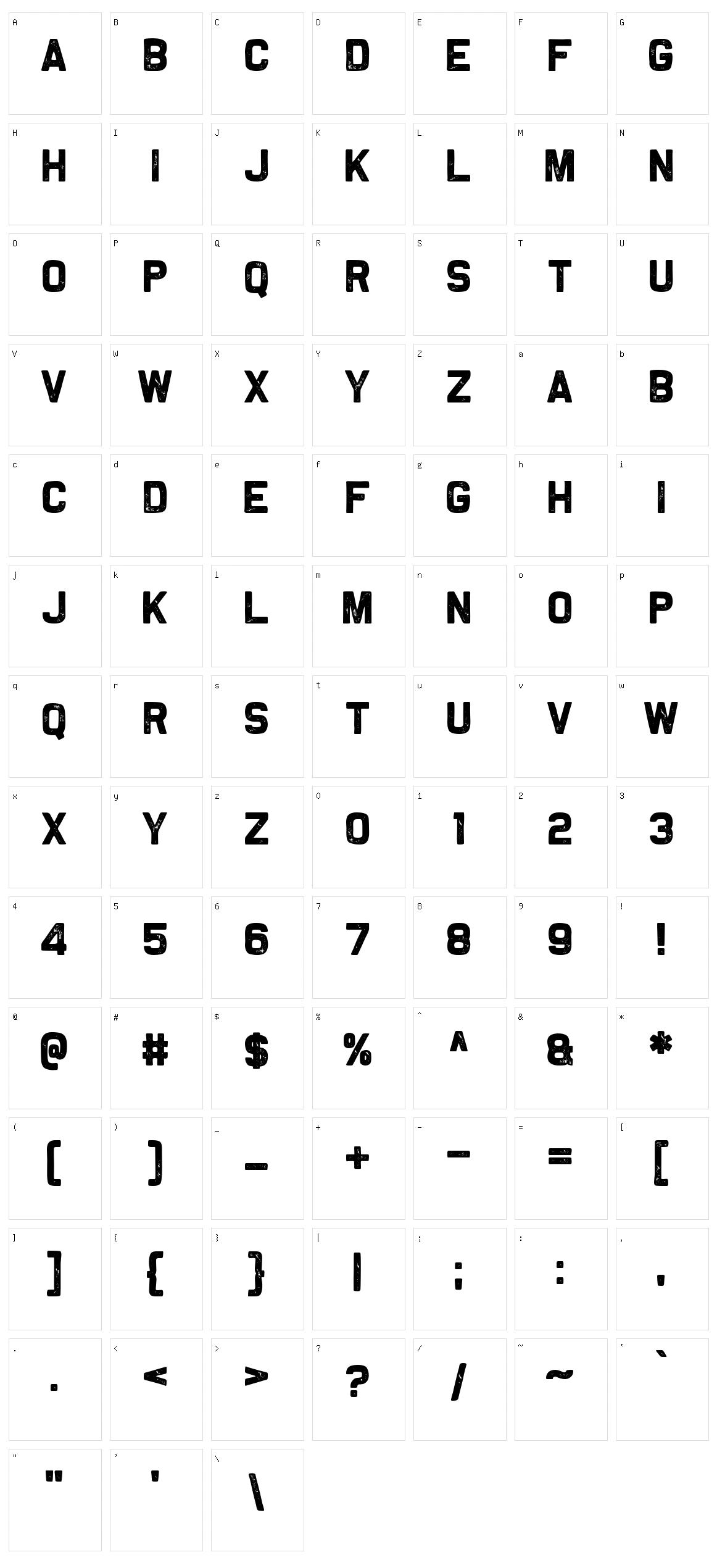
The free font The Slug and Lion is carefully designed by Chequered Ink, showcasing a thoughtful balance of creativity and usability and falls under the Eroded font style. When you download the ZIP file, it contains only 125 KB of font files, making it lightweight and quick to download. Please review the license details below to understand permitted usage and distribution rights. If license information is not available, we recommend using this font for personal projects only or contacting the author directly for commercial usage permissions.